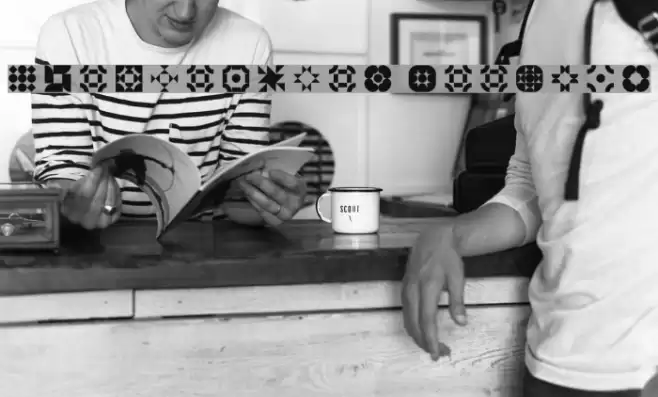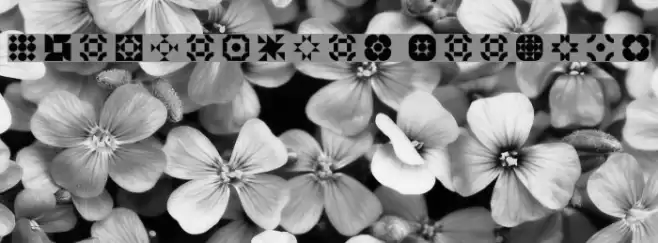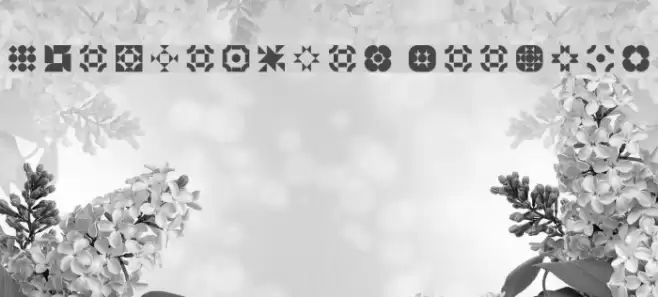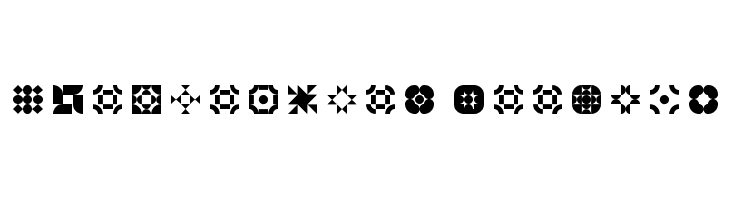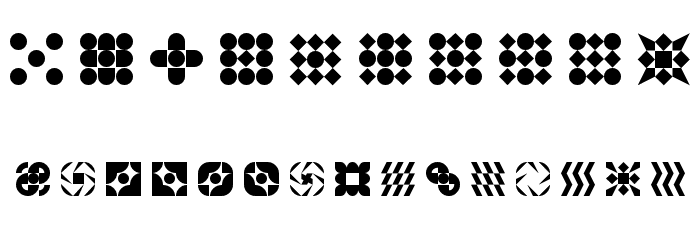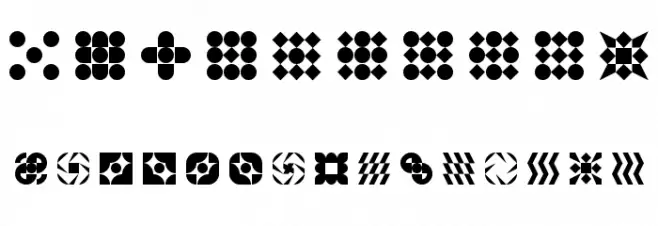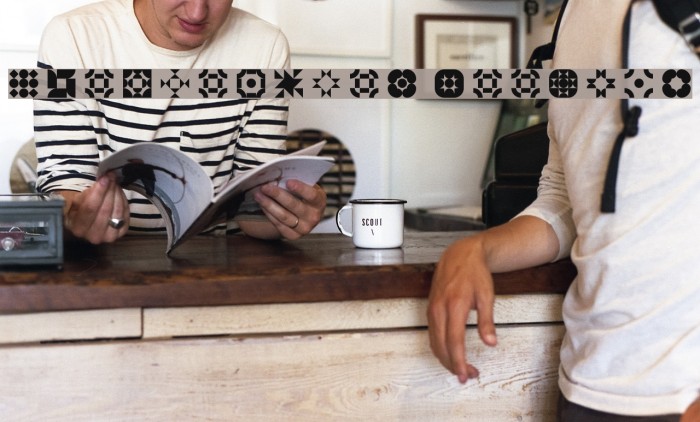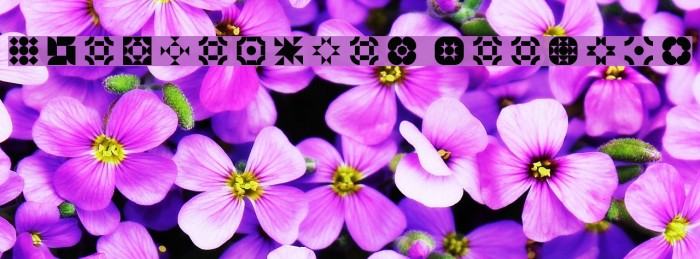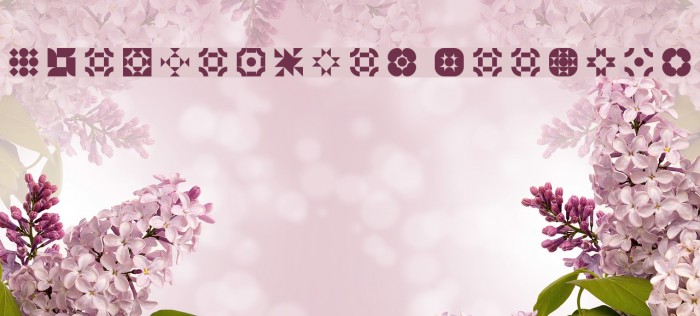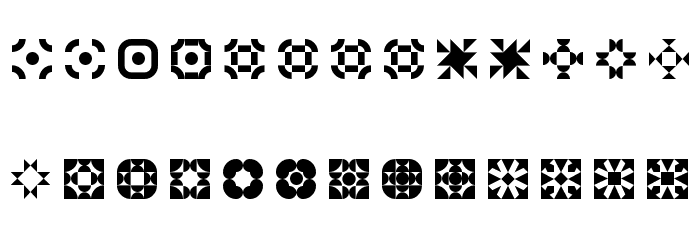
5Geomedings Regular Font
5Geomedings Regular Description
This collection features a series of geometric shapes and patterns, each with a bold and striking appearance. The designs are characterized by symmetrical arrangements and a strong use of black and white contrast, creating a visually impactful set of symbols. Each character is distinct, with a variety of angular and circular elements that form intricate patterns. The overall style is modern and decorative, making it suitable for projects that require a unique and artistic touch. The shapes are consistent in size and spacing, providing a cohesive look across the set.
A bold and decorative set of geometric symbols with high contrast and modern style from Uncategorized fonts.
- Proposed Projects: Ideal for use in branding, logos, decorative elements in graphic design, and artistic projects that require a modern and abstract aesthetic.
- Overall Style: Modern, Decorative
- Use Case: Logos, Decorative elements